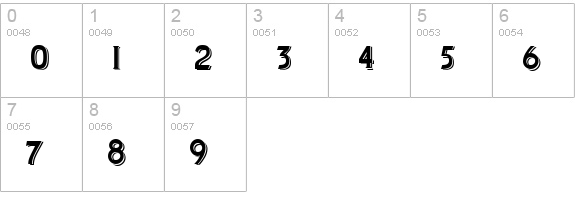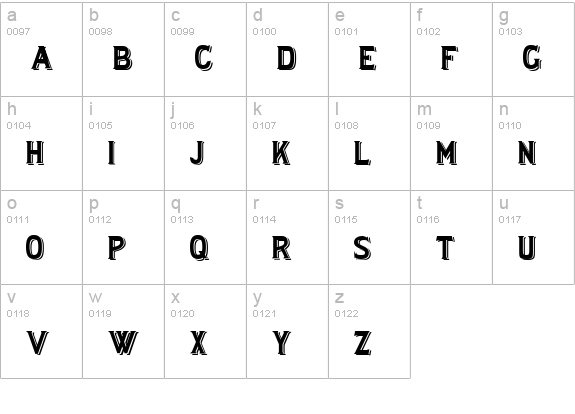
LewishamShadowed Font Details
LewishamShadowed font is a captivating and elegant typeface that will add a touch of sophistication to any design project. With its intricate and beautifully crafted letterforms, this font is sure to make a lasting impression. The unique shadowed effect of LewishamShadowed font adds depth and dimension, creating a visually striking appearance. Whether used for headlines, logos, or invitations, this font will effortlessly catch the eye and draw attention to your message. One of the best features of LewishamShadowed font is that it is free. Yes, you read that right! This stunning font is freely available to download at FontsMarket.com. Now you can enhance your designs without worrying about breaking the bank. With its versatility and timeless appeal, LewishamShadowed font can be used across a wide range of design projects. From elegant wedding invitations to modern website headers, this font will make your creations stand out from the crowd. So why wait? Download LewishamShadowed font today and unleash your creativity. With its free availability at FontsMarket.com, you have the opportunity to elevate your designs without any cost. Don't miss out on this amazing font that will transform your projects into true works of art.